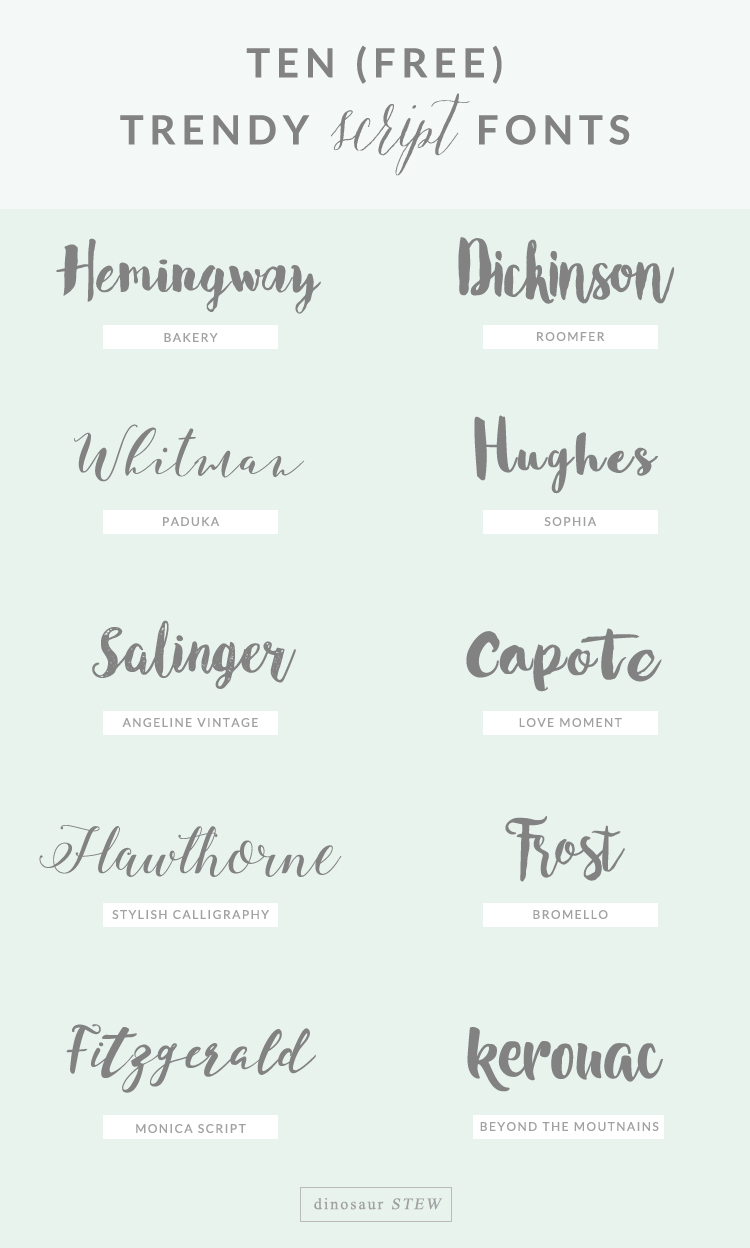
Trendy Script Fonts. 354,087 downloads (6,523 yesterday) free for personal use. They are organized into highly regular formal types similar to cursive writing and looser, more casual scripts.
Puzzled is a free modern trendy script font from dmitriy chirkov that has been attentively written with gentle curves to produce a font thats completely distinctive and original. Scripts like this are a really great way to add dynamism and enthusiasm to your logo, which is why you often see them used in vintage logos. I also create grillo nimo sans serif for a combination and i added extras 13 different emblems / badges with editable text.
Lonelly Girl Is A New Modern Script Font With An Irregular Baseline.
354,087 downloads (6,523 yesterday) free for personal use. Scripts like this are a really great way to add dynamism and enthusiasm to your logo, which is why you often see them used in vintage logos. The indie fonts from foundry lián types, a type family of trendy brush script fonts.
Tomato Soup Trendy Free Script Font Has Been Attentively Written, With Gentle Curves To Produce A Font That's A Completely Distinctive And Original.
Perfect for adding an elegant and unique touch to. First font is modern, thin & unique style handwritten script font with multi language support and lot of stylistic alternates + swash font. Black delights elegant ligature font.